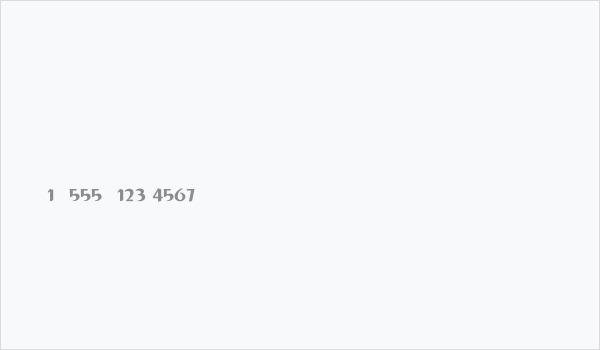
FZHeragana Font
FZHeragana Description
This font features a bold and dynamic style with a playful and artistic flair. The numbers are designed with a distinct curvature and varying stroke thickness, giving them a lively and energetic appearance. The exclamation mark is particularly striking, with a bold dot and a slightly tilted line that adds to the overall whimsical feel. The font's design is reminiscent of calligraphic styles, yet it maintains a modern touch with its clean lines and smooth curves. The characters are well-spaced, ensuring readability while maintaining a unique aesthetic that stands out.
| Overall Style | Modern, Playful |
| Proposed Projects | Ideal for creative projects such as posters, children's books, playful branding, and artistic invitations. |